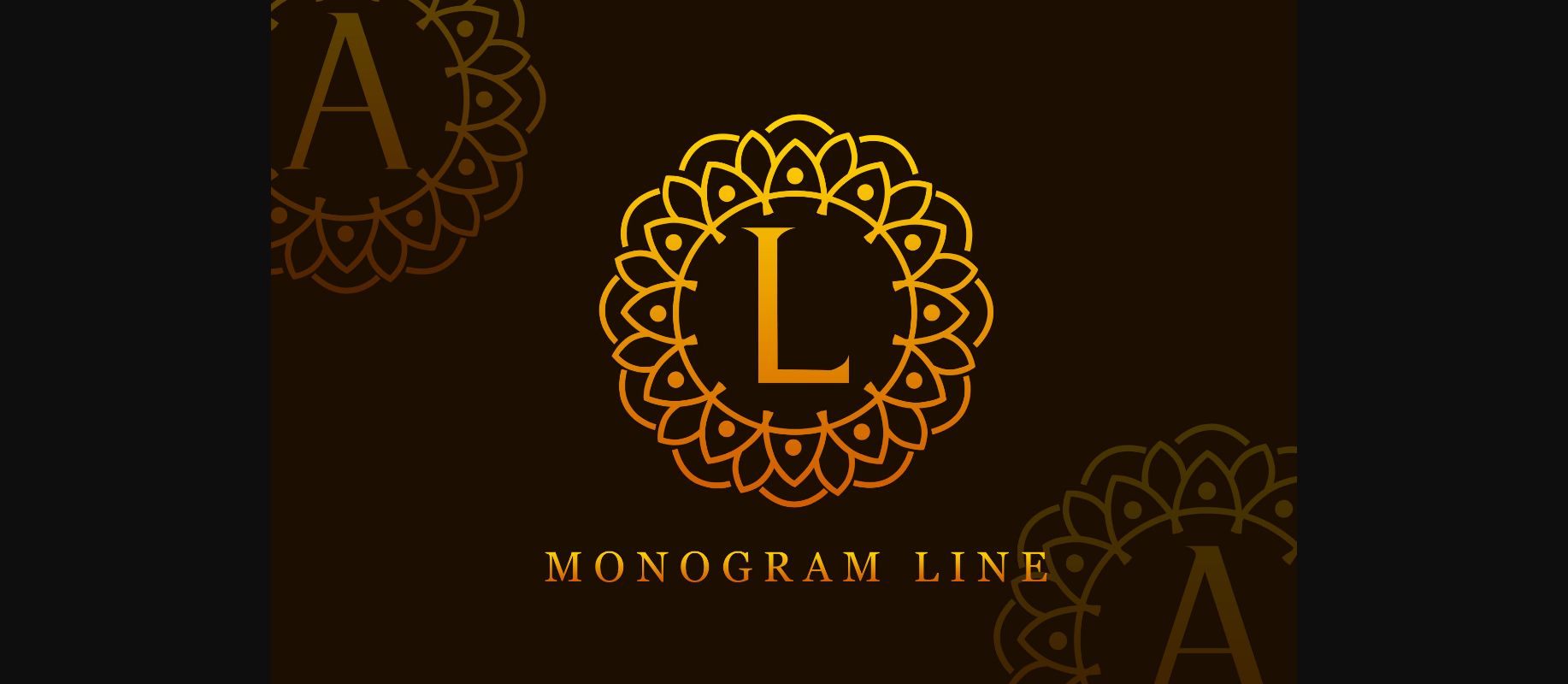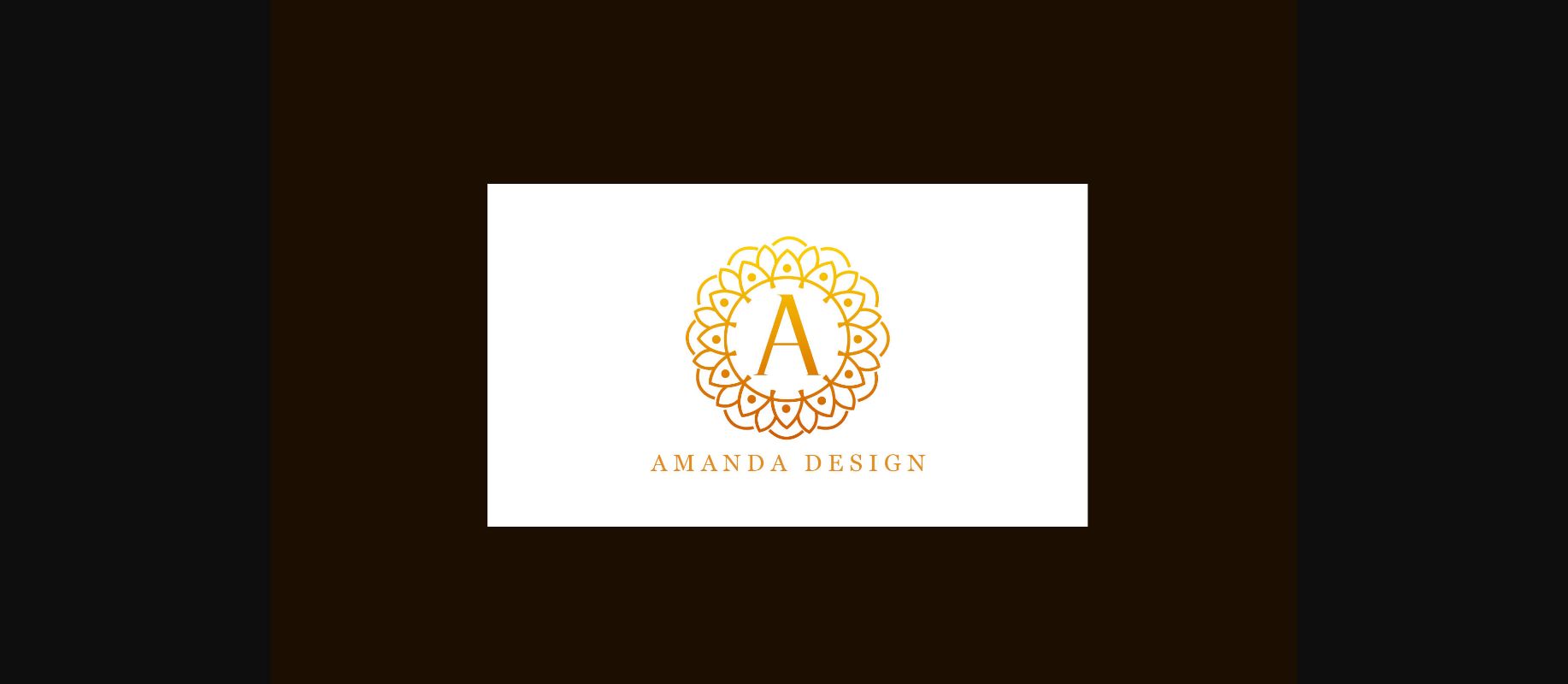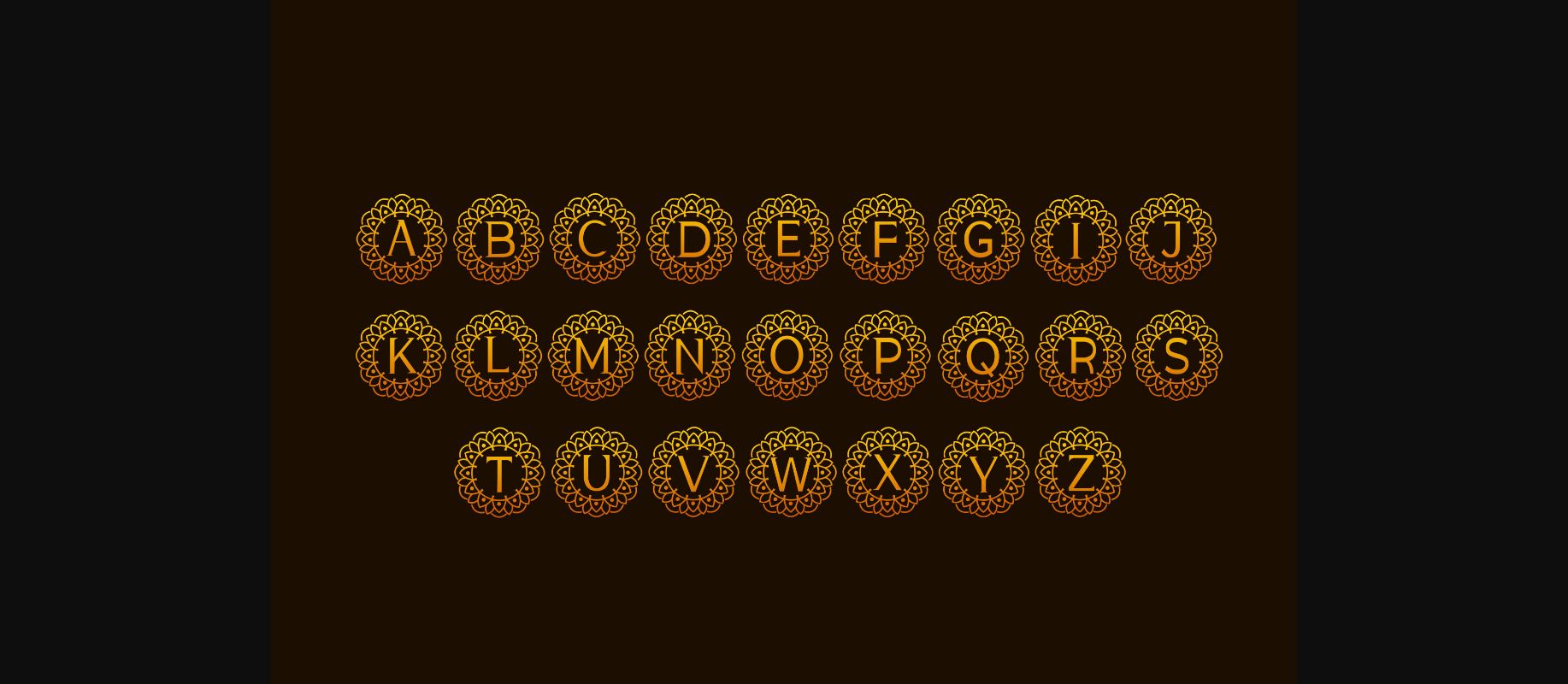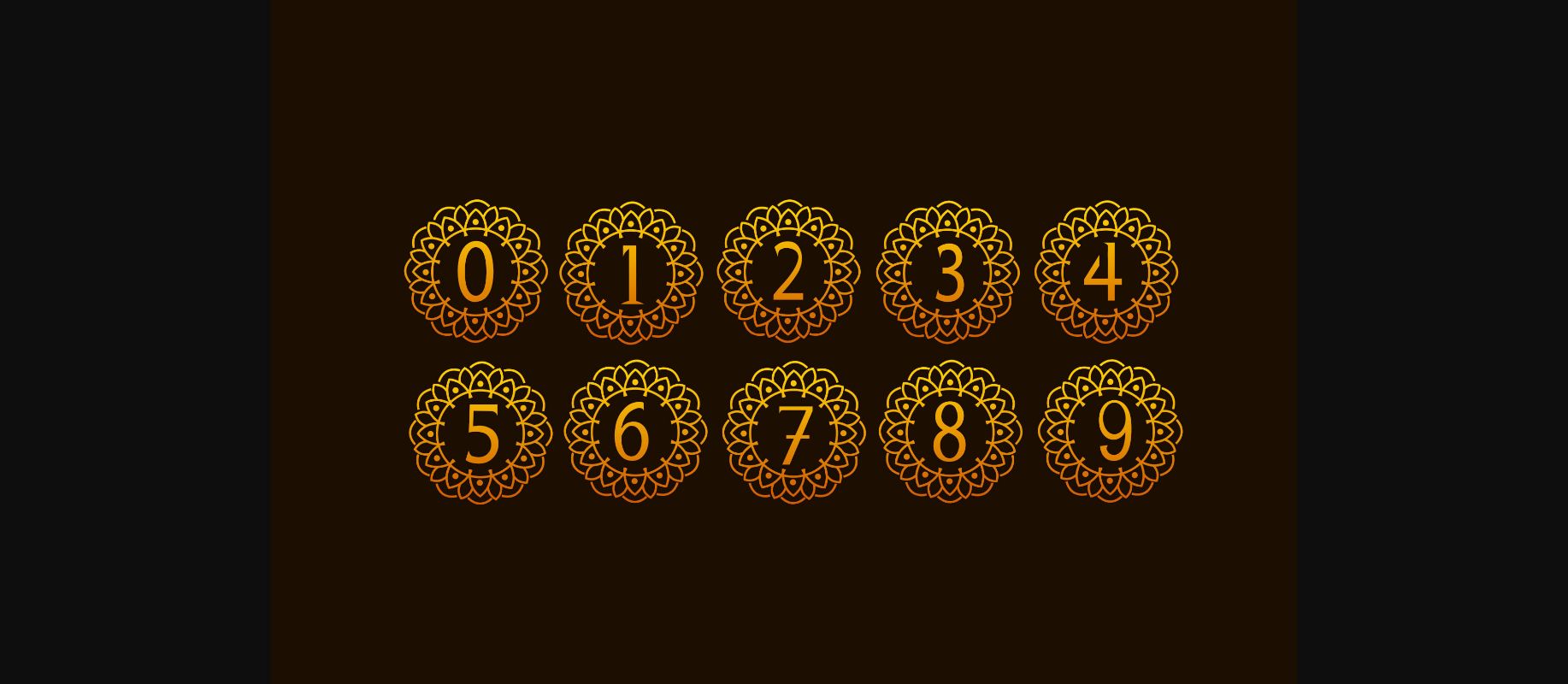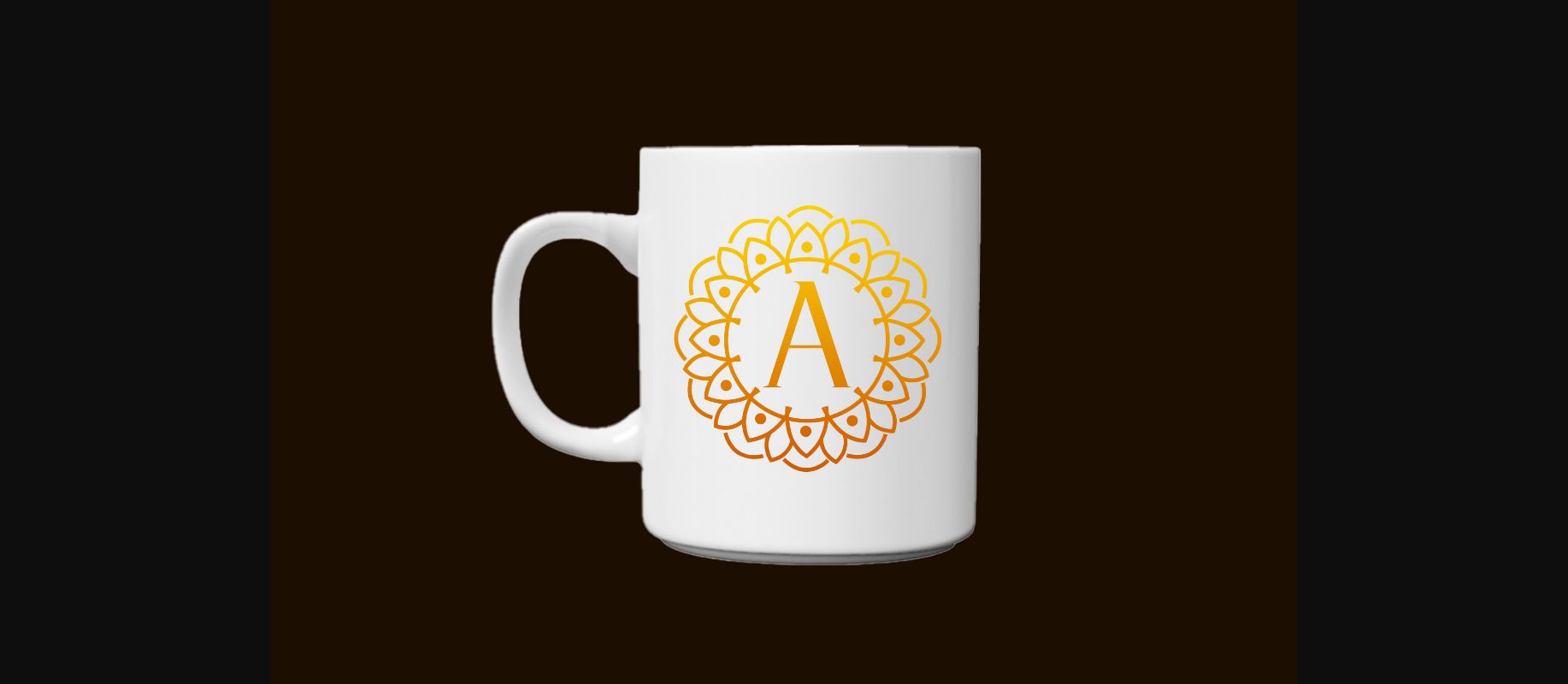
About Monogram Line Font
Monogram Line is a decorative font with a simple and fun but elegant look. It makes your design look luxurious. Use it to create cool wedding invitations, cool stationery art, fun social media posts, and sparkling greeting cards. Make decorations with this cool font and watch how they shine!